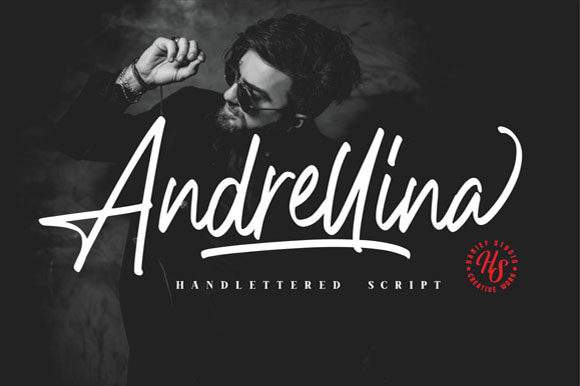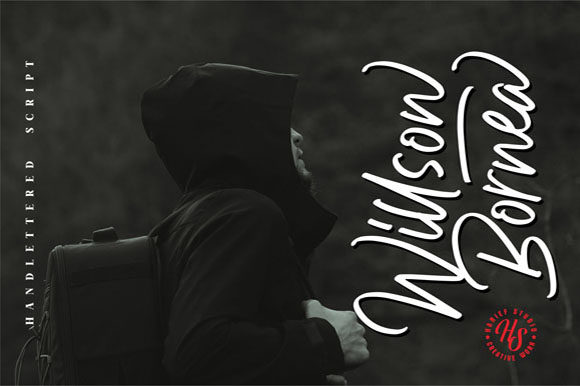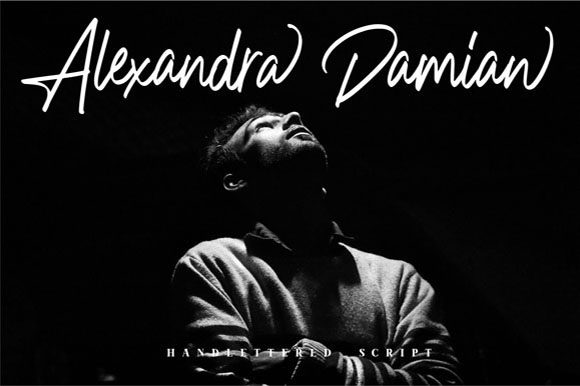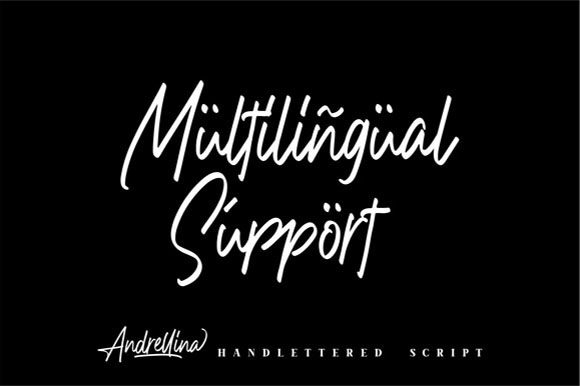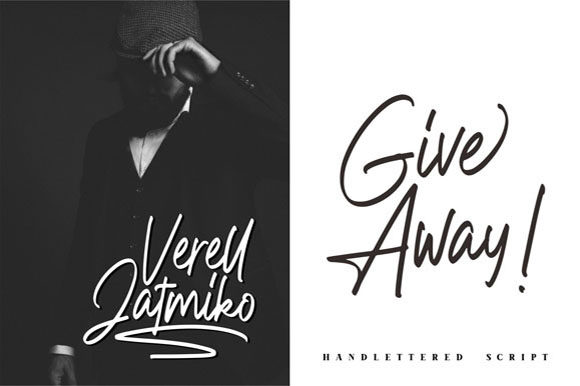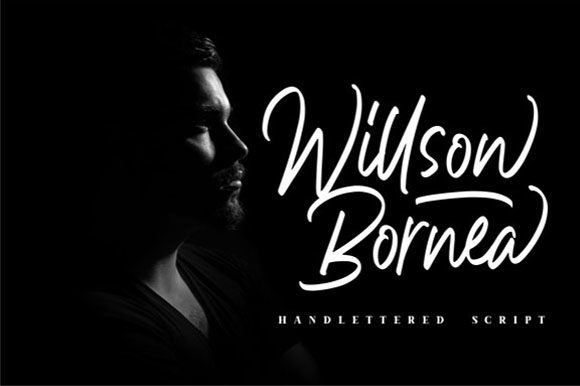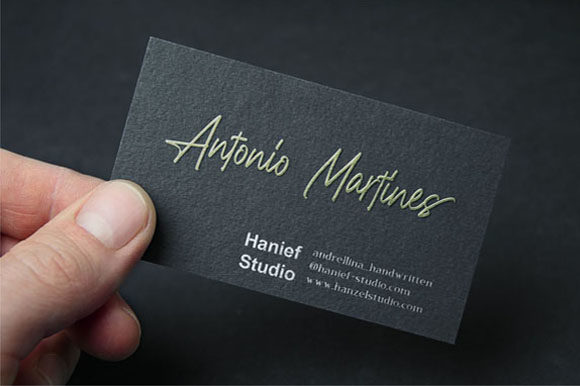
Andrellina Font
About Andrellina Font
Andrellina is a carefully crafted script that radiate life and authenticity. Get inspired by its unique charm, and turn any design idea into a true standout!